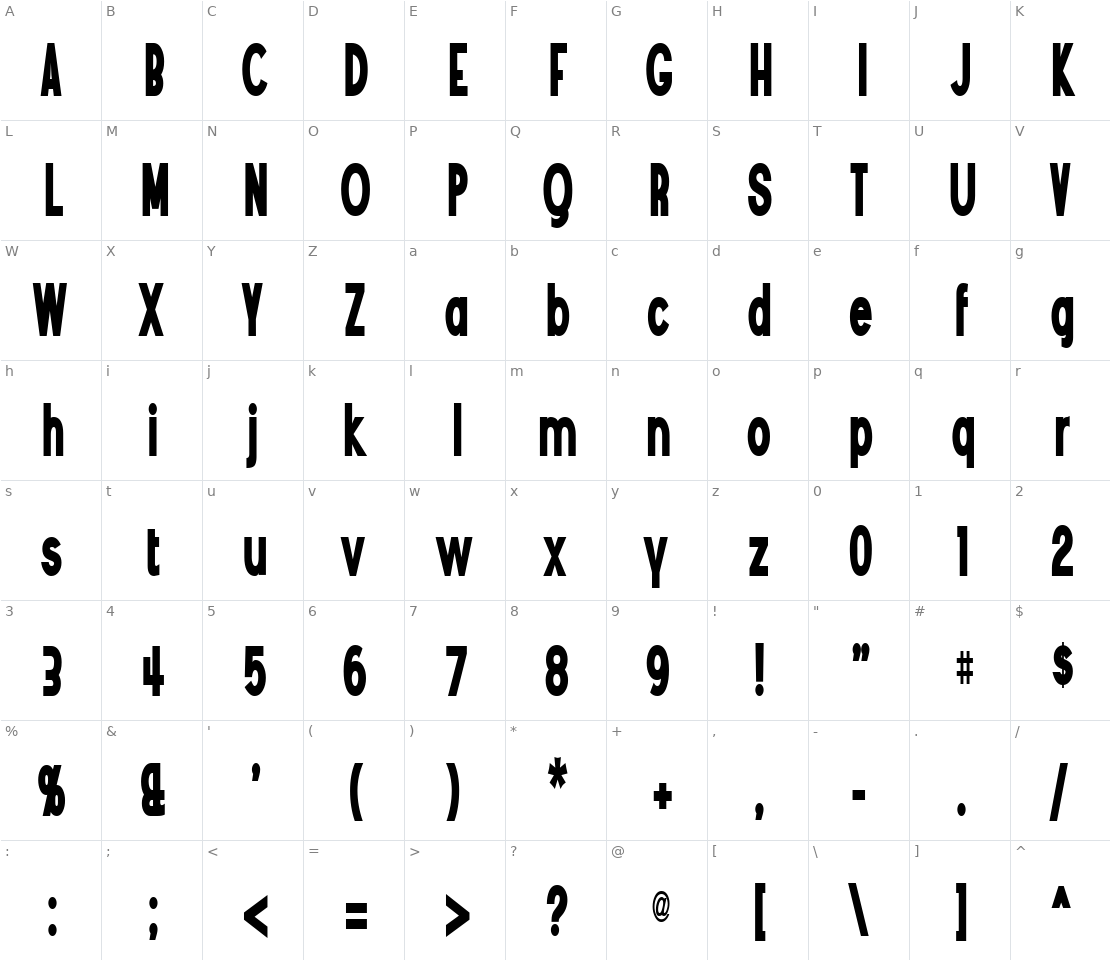
Angostura Black
Angostura Black is a heavy, condensed grotesque from Ray Larabie that packs a lot of visual density into a narrow frame. The uppercase letterforms are thick and tightly spaced, built for impact in headlines, posters, and signage where you need bold type that doesn't eat up horizontal space. It reads as no-nonsense and industrial, with the kind of blunt presence that works well in packaging and editorial headers.